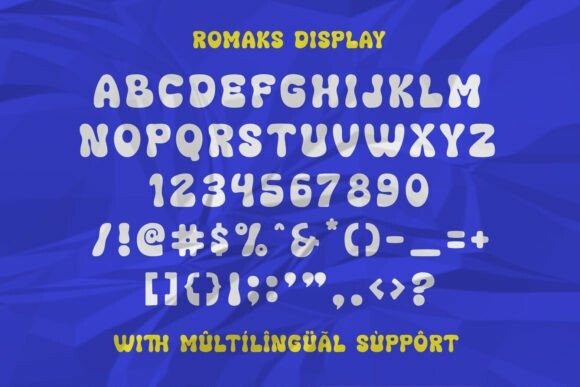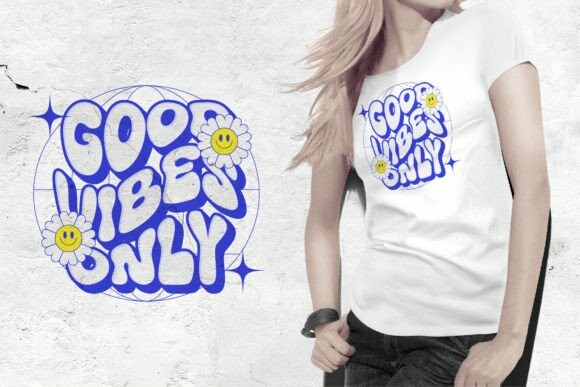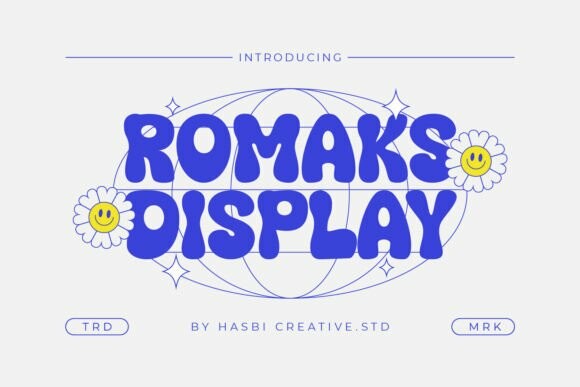
Romaks Font
Designer: Hasbi Creative
Romaks Font, a retro display font that seamlessly blends vintage aesthetics with modern sensibilities. Inspired by the bold typography of the 70s, Romaks Display brings a touch of nostalgia and personality to your creative projects.